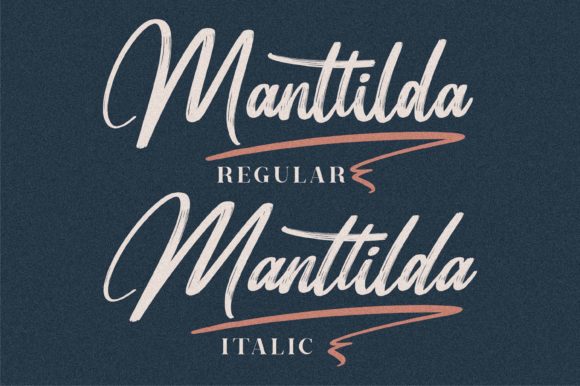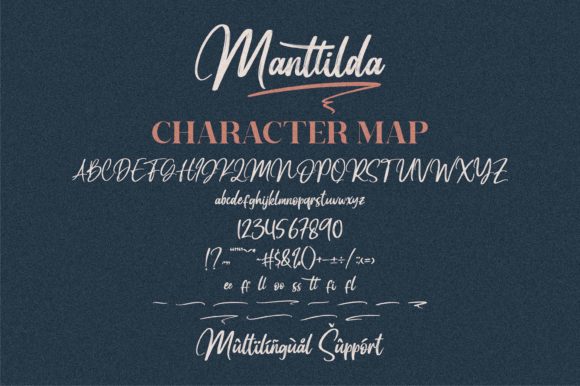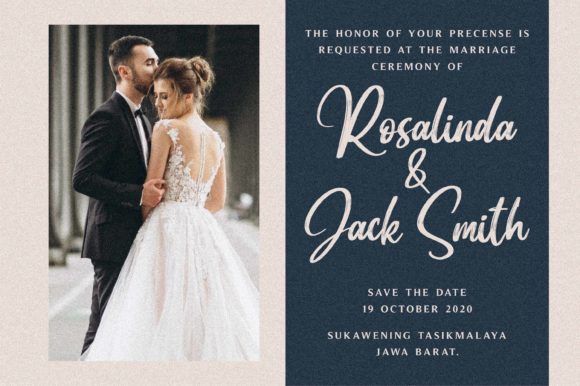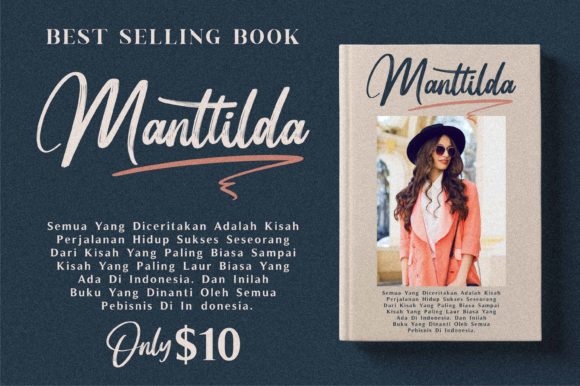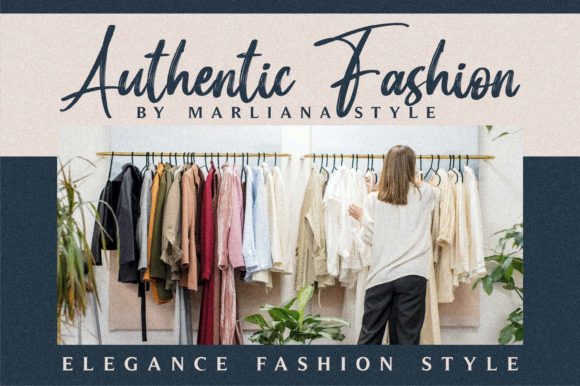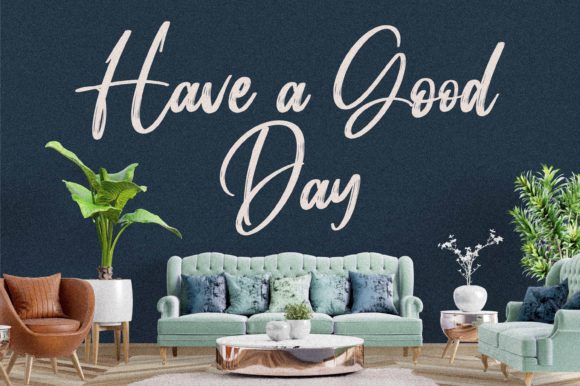
Introduction to Manttilda Font Font
Fonts play a crucial role in design, and the Manttilda Font font is a typeface that brings both character and versatility to any project. Whether you’re working on a branding project, a website, or a print design, the Manttilda Font font offers a unique style that can elevate your work.
Manttilda is a gorgeous and daring paint brushed handwritten font, crafted to give your headlines and logotype projects a stylish touch.
This font reads as strong, confident, and dynamic and can add tons of nostalgic character to your designs .
Key Features of Manttilda Font Font
Why Choose Manttilda Font Font?
The Manttilda Font font is more than just a typeface – it’s a design tool that helps you communicate your message with style and clarity. Its unique character set and versatile design make it suitable for a wide range of applications, from elegant invitations to bold headlines.
With its carefully crafted letterforms and balanced proportions, the Manttilda Font font ensures readability and visual appeal across all mediums.
What makes Manttilda Font font special?
The Manttilda Font font stands out with its unique design, exceptional readability, and versatility across various design applications.